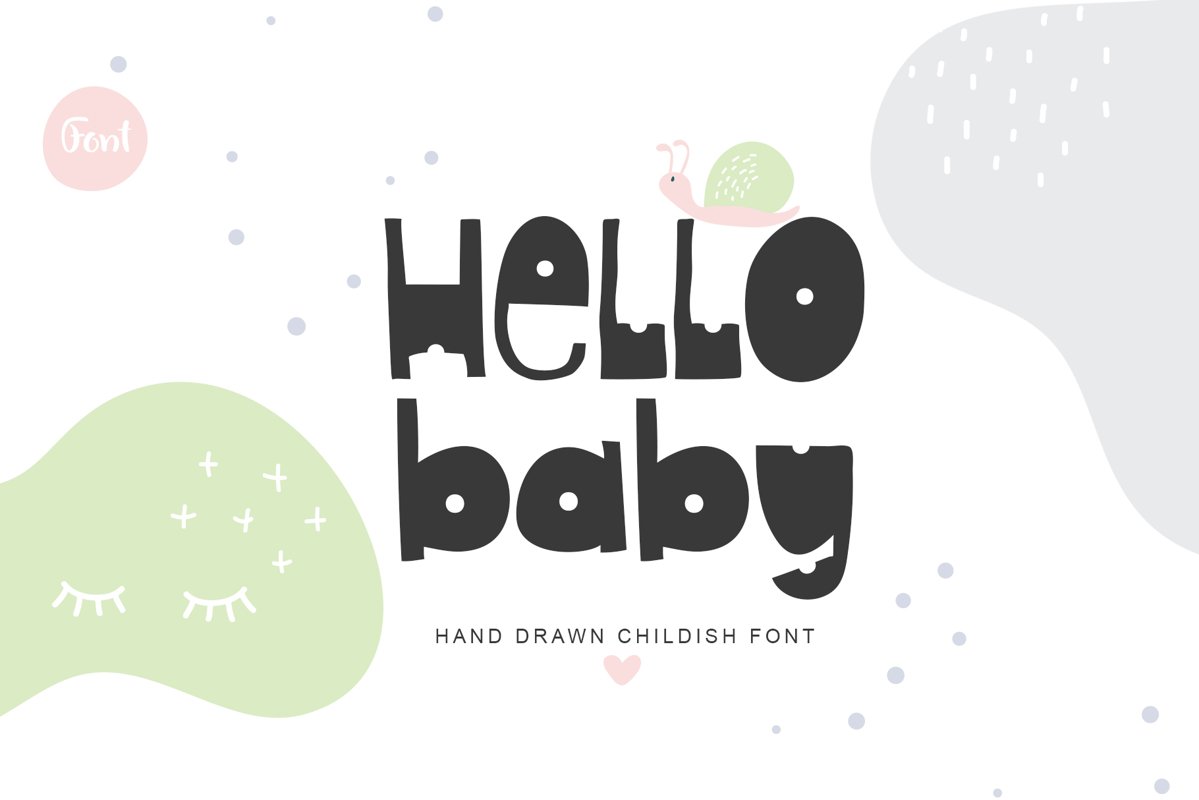
Created By Happy Letters
Hello Baby
HelloBaby
Hello Baby is font for many Holiday designs. This font is fun to be used by all design needs, both for adults and children. Hello Baby contains standard characters, numbers and punctuations.
Hello Baby is Display font that give a fun and joy of holiday greeting cards, logo, invitations, design for postcard, instagram, pintesest, etc.
PERFECT FOR
Decorate your albums, greeting cards (Christmas, Birthday, other holidays), sicial media, Instagram, Pinterest, logos, phrases, gift shops, internet shops presentation.